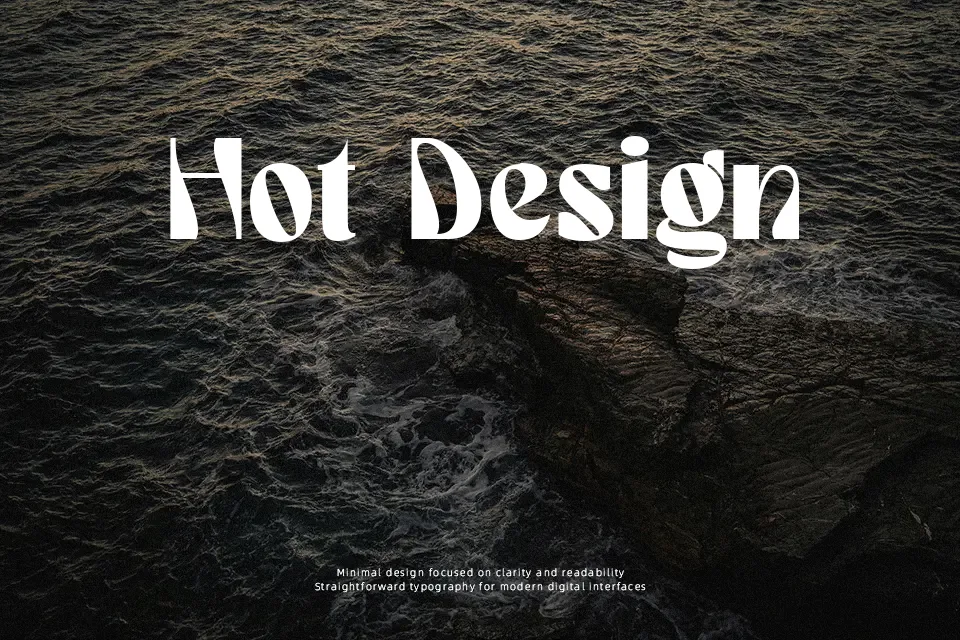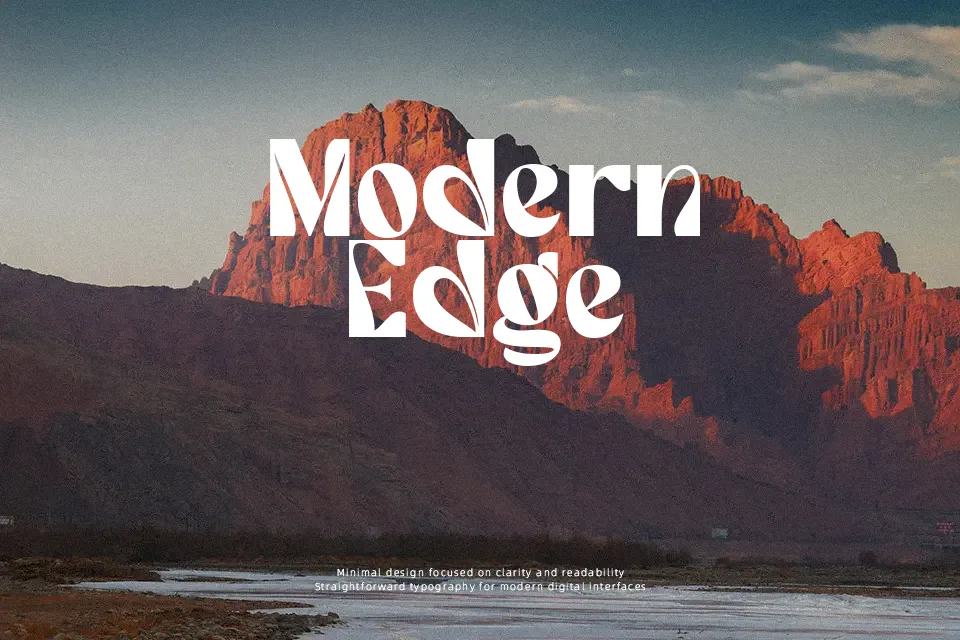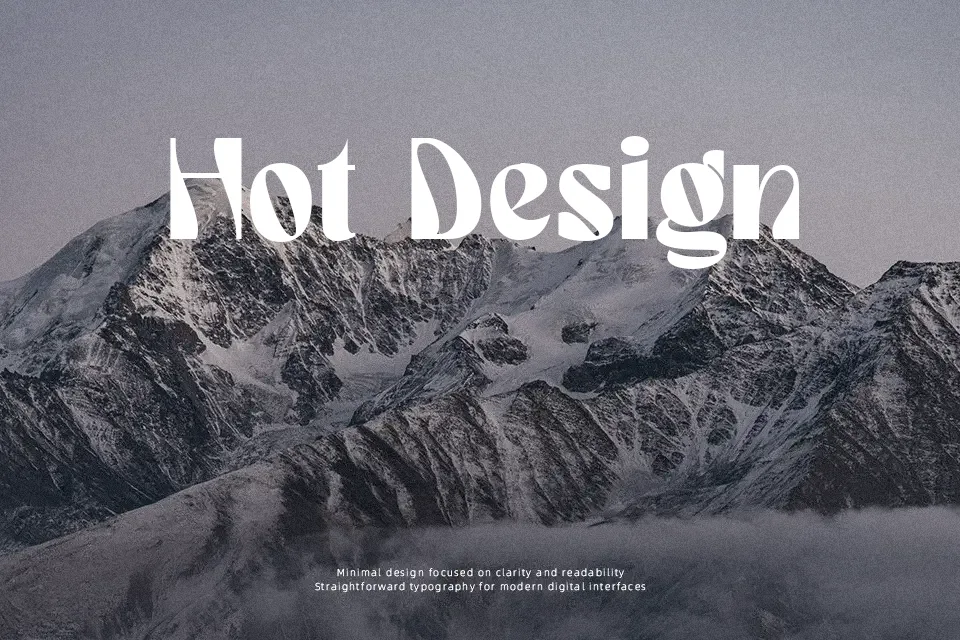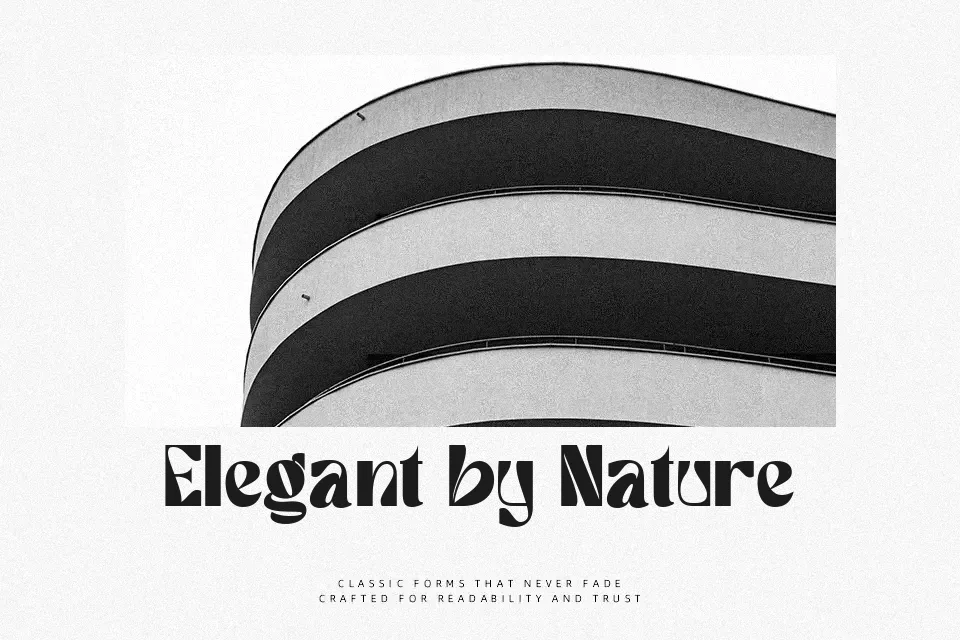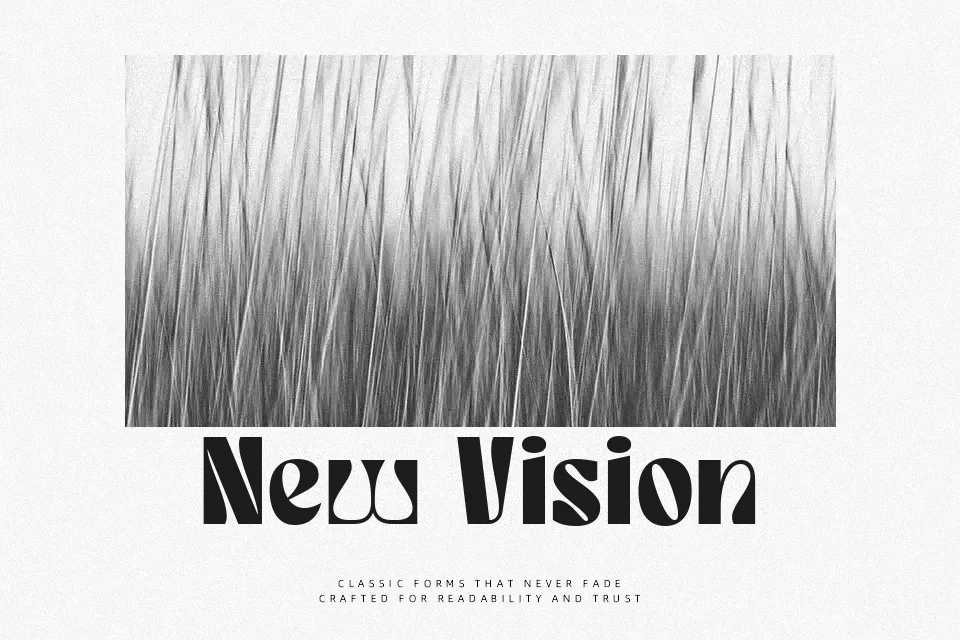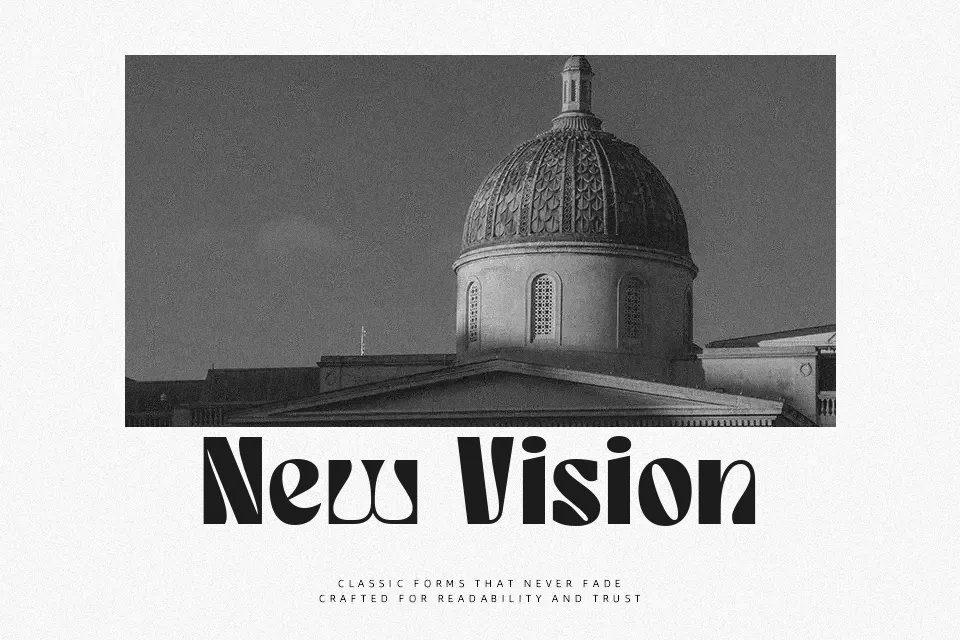
Categories Elegant Font features pronounced stroke modulation paired with rounded terminals and expressive serif transitions across both uppercase and lowercase sets. The letterforms display moderate character width and balanced interior spacing, creating an even typographic rhythm across short phrases. Its distinctive contours give poster headlines, cosmetic branding, and album covers an eye-catching retro character. The spacing maintains visual coherence effectively when set at generous headline sizes. However, the high stroke contrast and decorative letter junctions reduce legibility in continuous text blocks, making the typeface impractical for small interface labels or dense multi-page body copy.
Best For: luxury cosmetic packaging, fashion magazine covers, music festival posters, retro brand identities
Not Ideal For: long paragraph text, mobile app interface labels, technical documentation, dense tabular data
Perfect for fashion, headline, and logo, with a bold and decorative style.